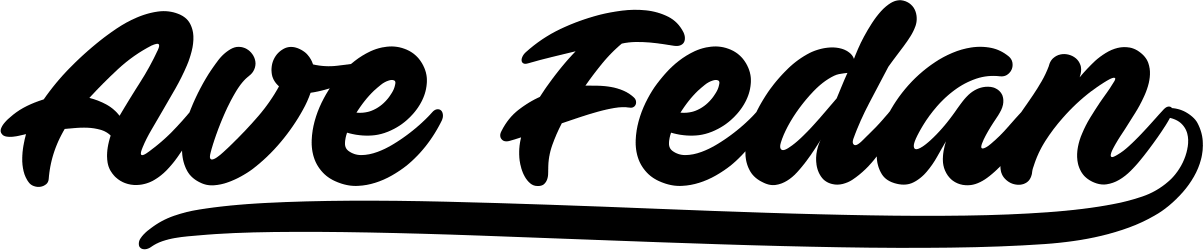
Ave Fedan Font
Welcome to the new special font! Ave Fedan is the old school script font with bold and thick letters that seem it created with handwriting. This font can create a playful and friendly sense of the content.
This font is an ideal option to use in any logo, T-shirt, posters, book covers, branding, and more. Keep in mind this baseball font doesn’t contain all numbers. Run it immediately and enjoy!
Use 0-9 to create swashes. Example: Ave2 Fedan7